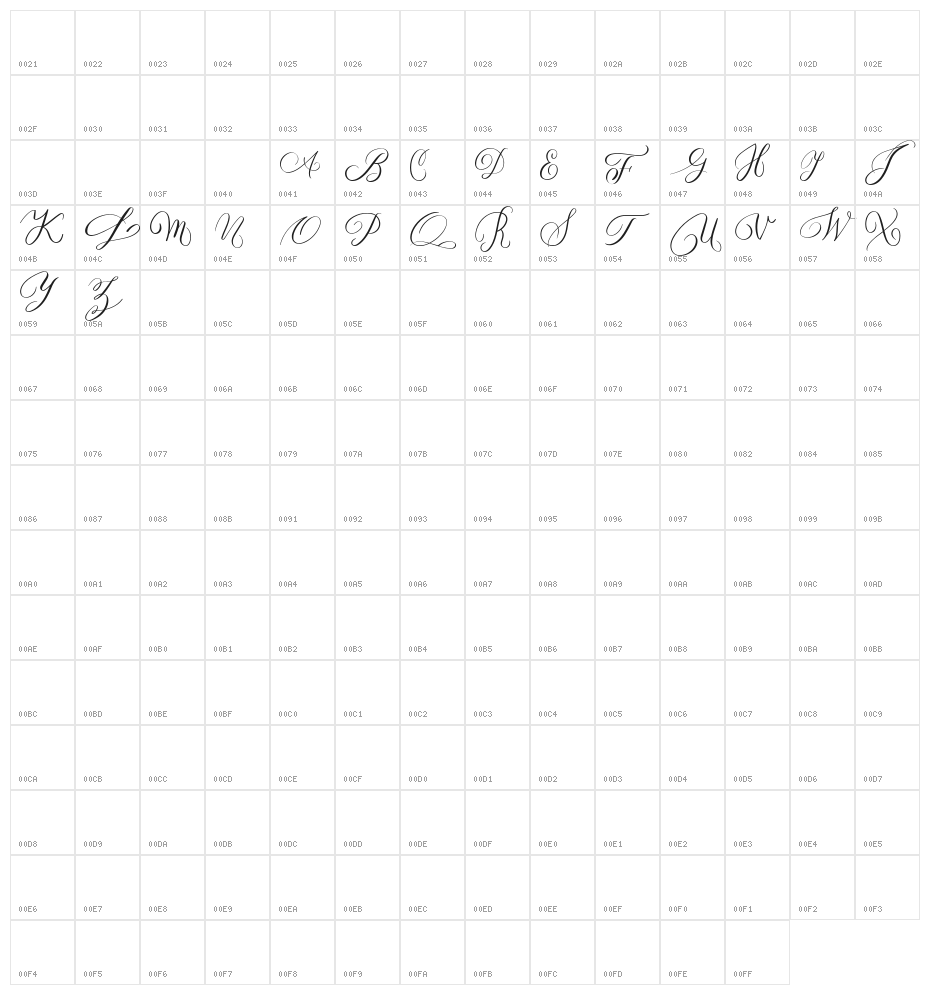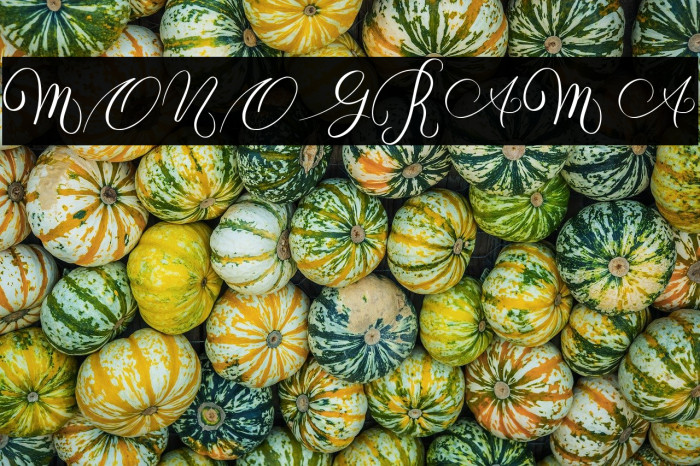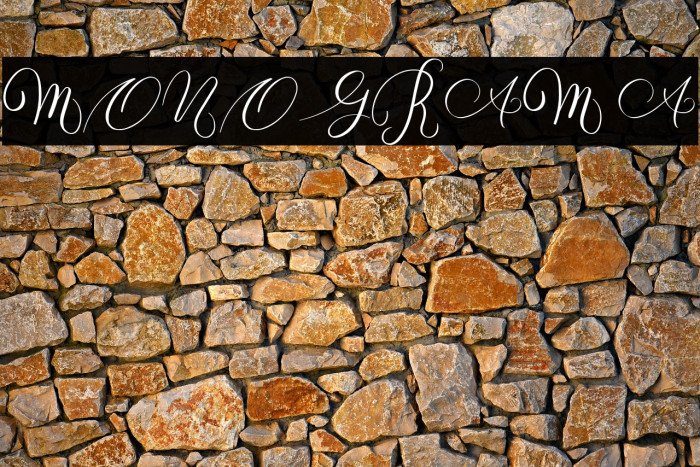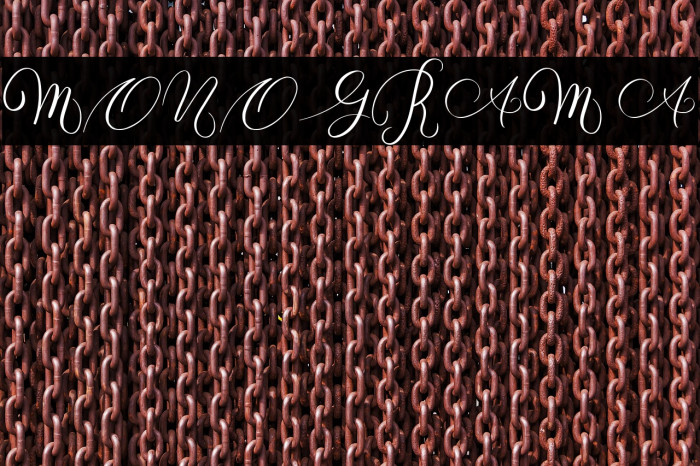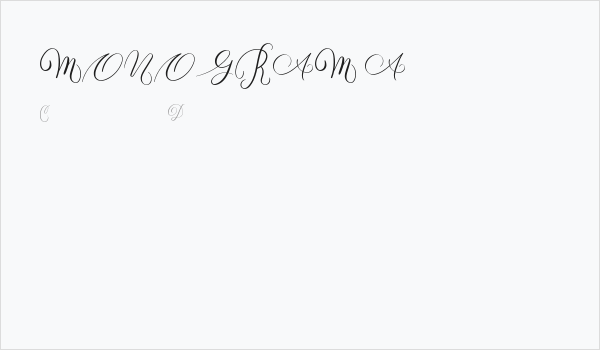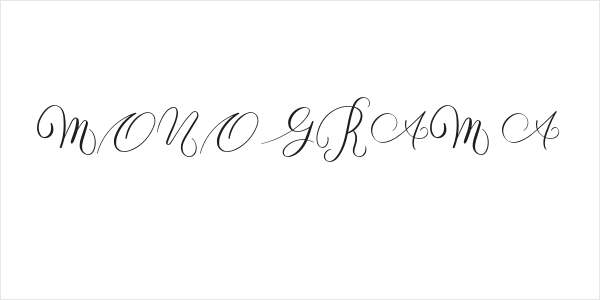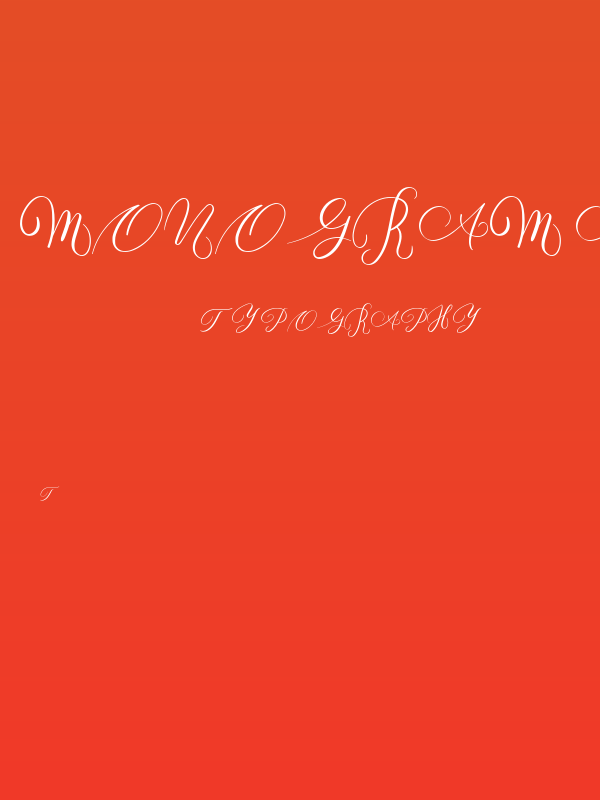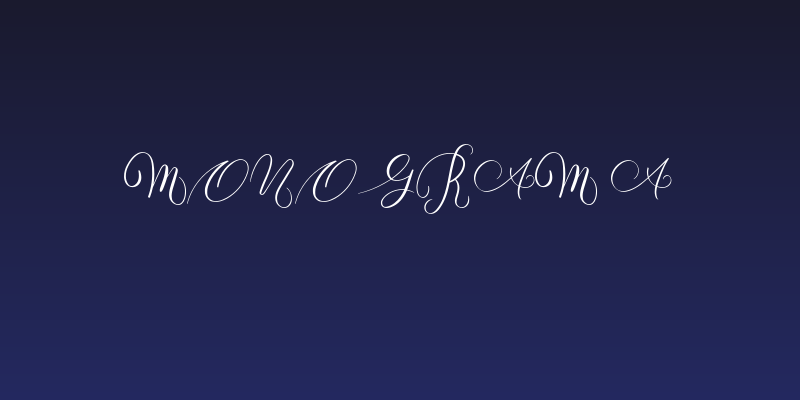
MONOGRAM A Font
MONOGRAM A Description
This elegant script font features intricate and flowing letterforms, characterized by its ornate and decorative style. The uppercase letters are highly stylized with elaborate swirls and loops, giving it a sophisticated and luxurious appearance. The font maintains a consistent stroke width, providing a harmonious and balanced look. Its design is reminiscent of classic calligraphy, making it ideal for formal and elegant applications. The overall aesthetic is both timeless and refined, suitable for creating a sense of grandeur and prestige.
| Overall Style | Classic |
| Use Case | Logos, Invitations, Decorative headings |
| Proposed Projects | Ideal for wedding invitations, luxury branding, monograms, and formal event programs. |